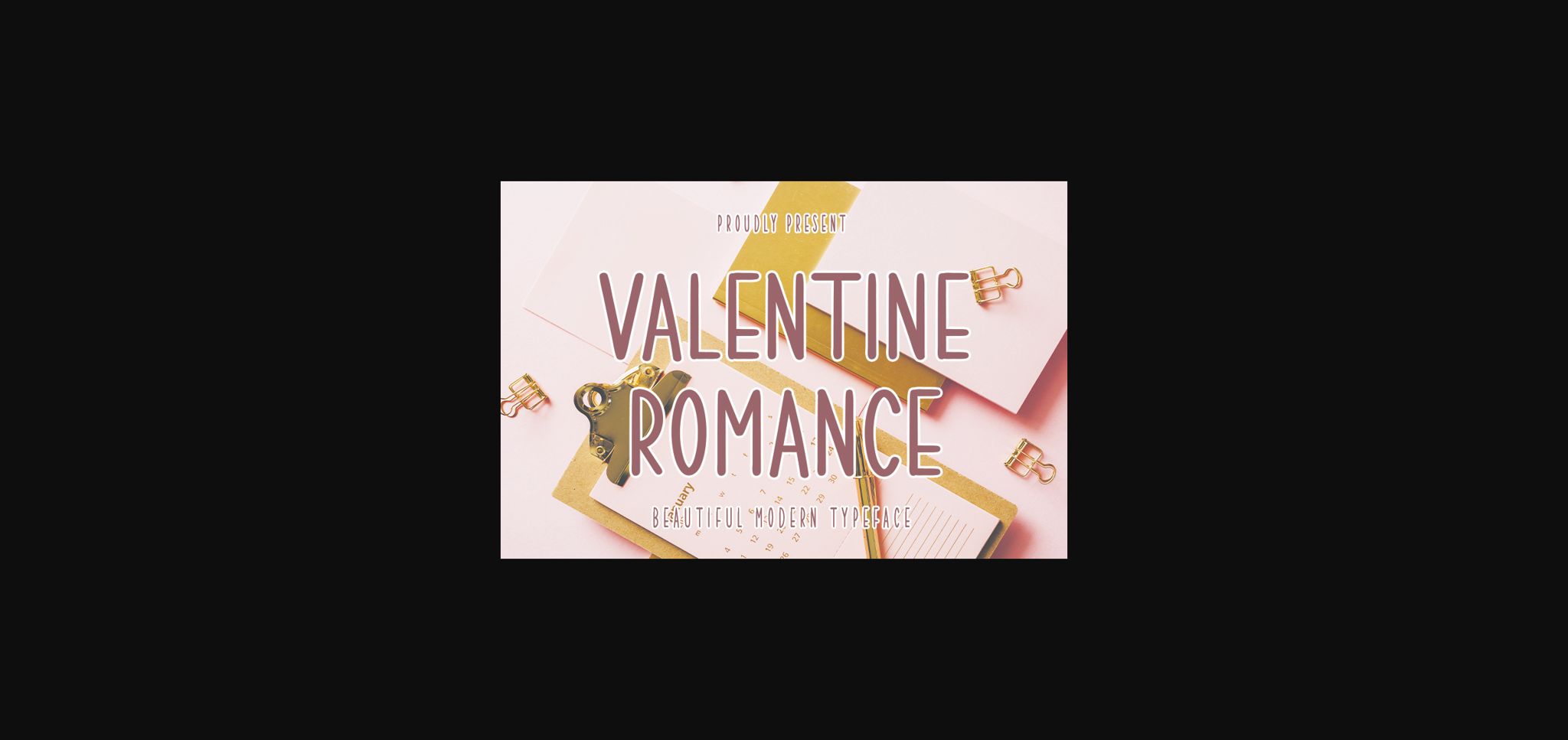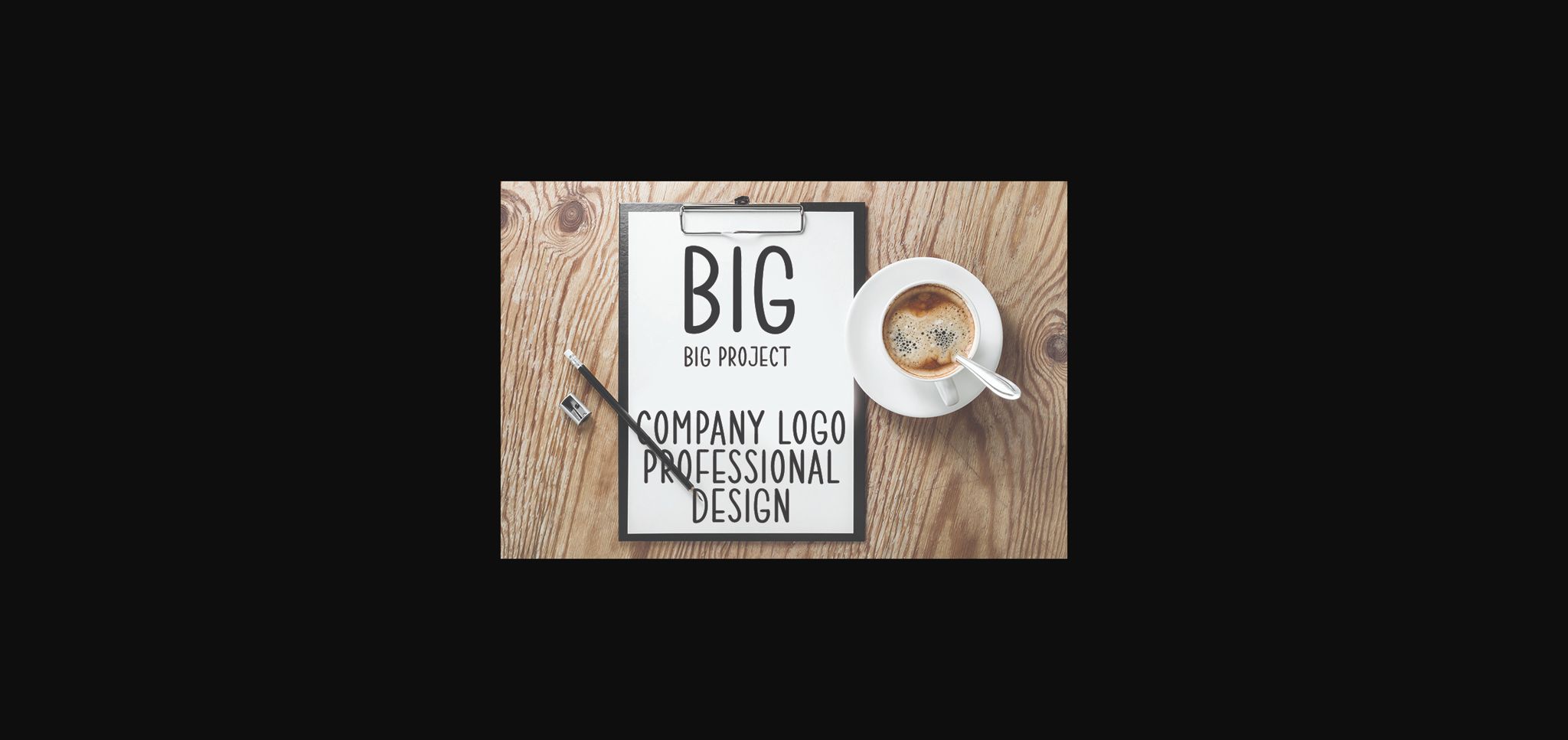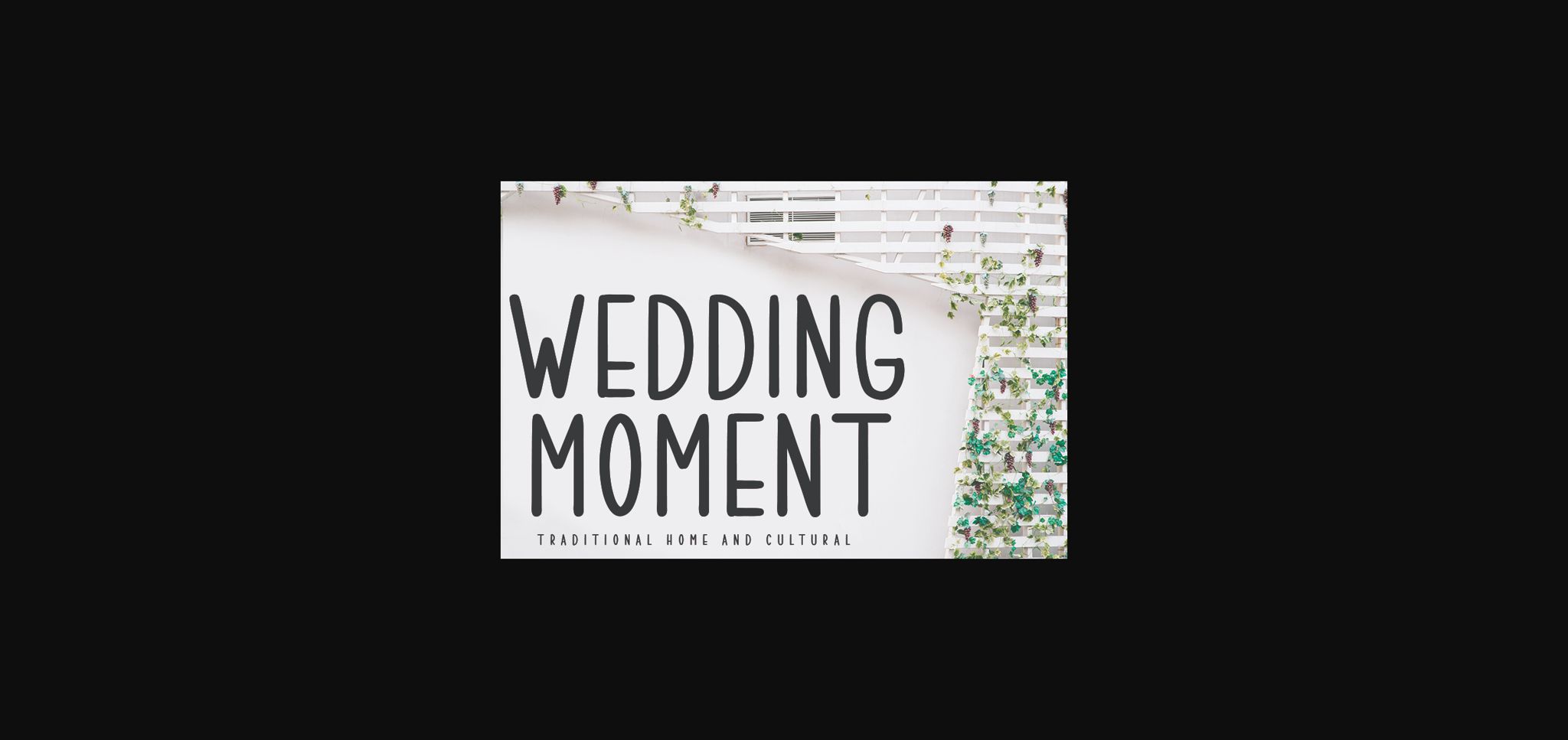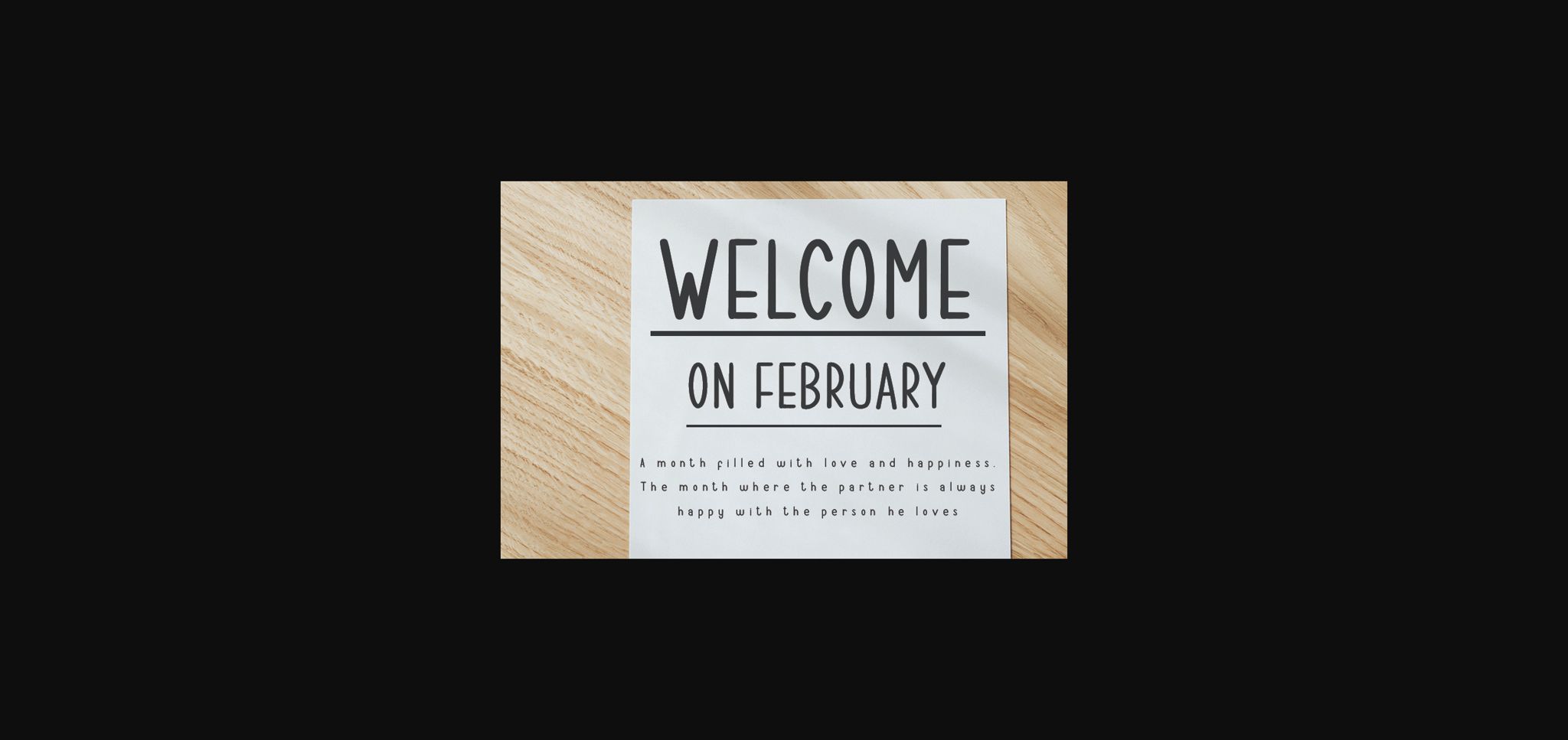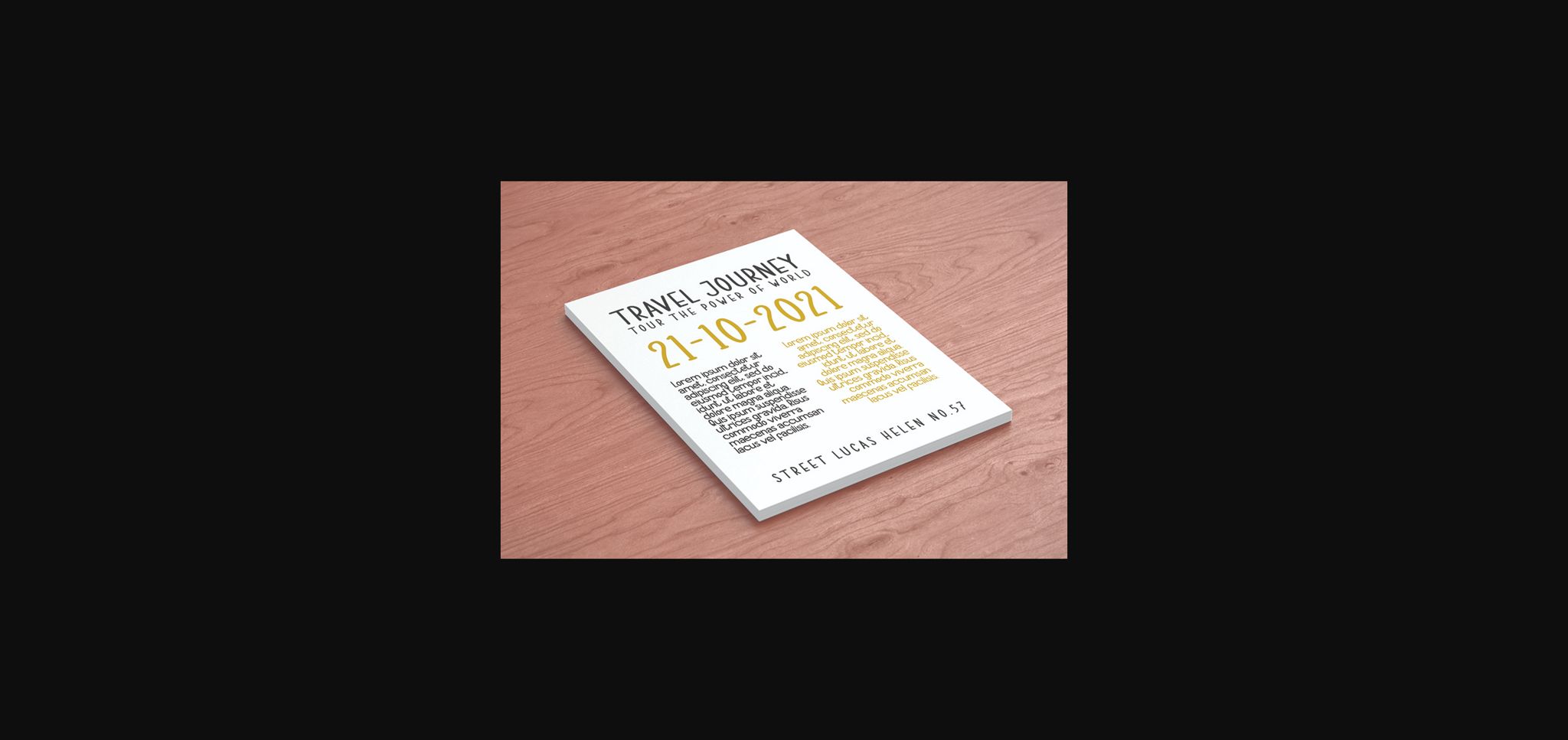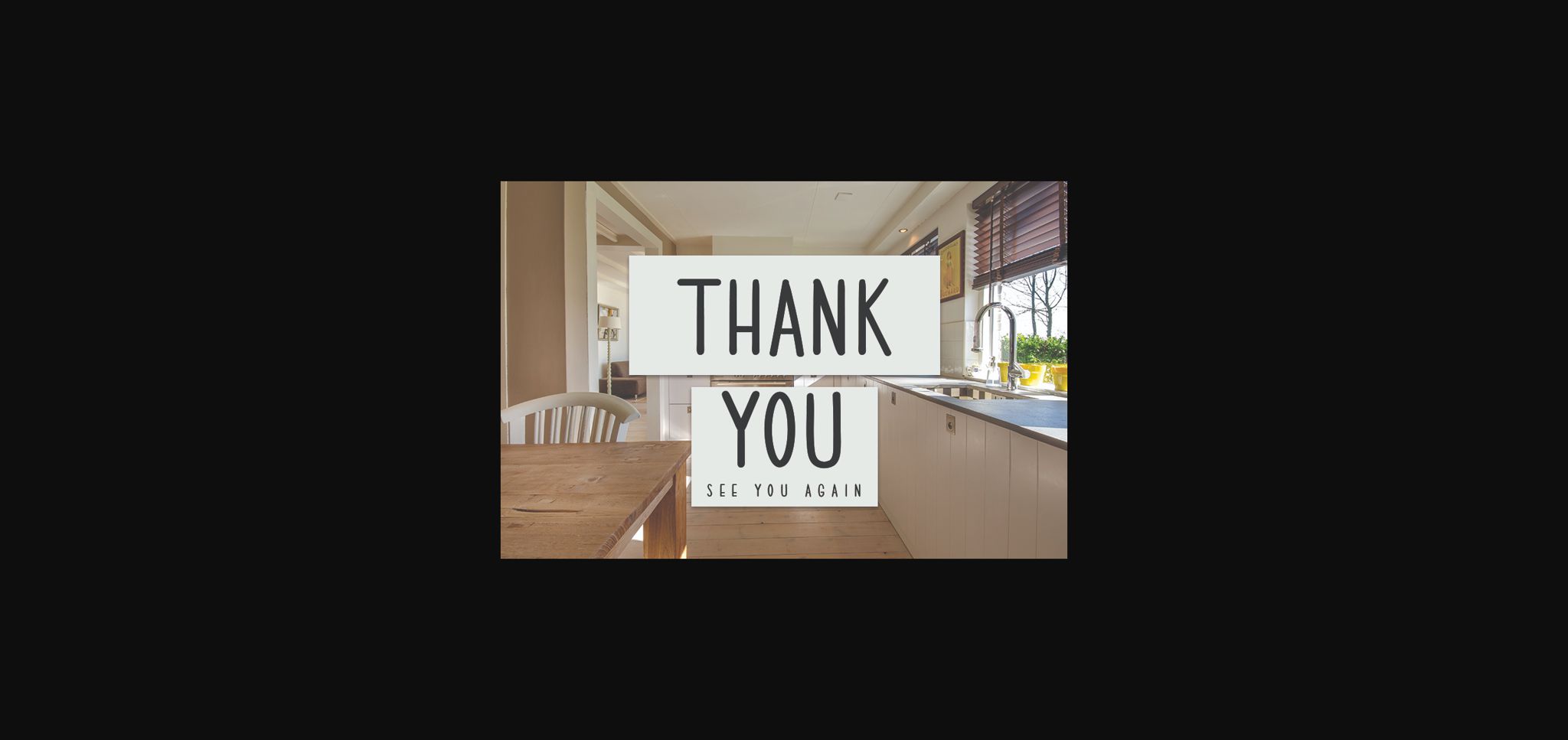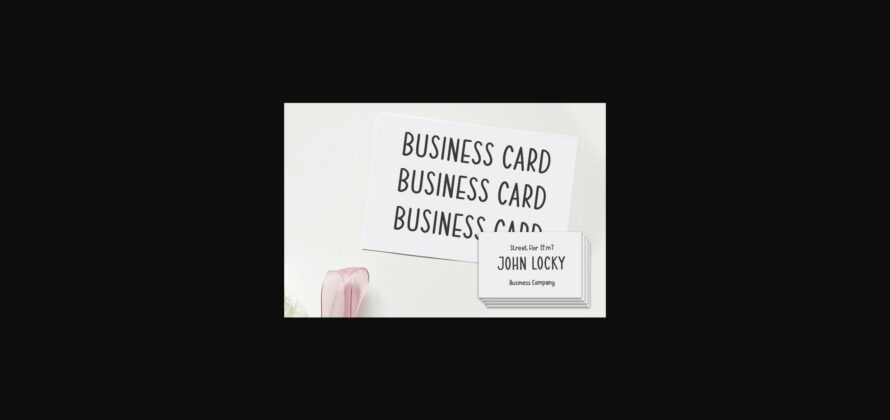
HomeSans Serif FontsValentine Romance Font Sans Serif Fonts Valentine Romance Font FacebookXPinterestWhatsApp 1 of 9 ... Valentine Romance Font Poster 2... Valentine Romance Font Poster 3... Valentine Romance Font Poster 4... Valentine Romance Font Poster 5... Valentine Romance Font Poster 6... Valentine Romance Font Poster 7... Valentine Romance Font Poster 8... Valentine Romance Font Poster 9... About Valentine Romance Font Valentine Romance is a tall and friendly sans serif font that is a little bit quirky with an authentic handwritten feel. This font looks incredibly adept in a wide variety of contexts! DOWNLOAD NOW People also explored Summer Vibes Font Vinttadge Font Blessed Script Font Bainse Font Milky Vanilla Font Happy Flower Font Sunbury Town Font The Great Craftsman Font Christmas Journey Font 306 0 TagsValentine Romance Font Previous articleDecember End FontNext articleLaBonita Font LEAVE A REPLY Cancel reply Comment: Please enter your comment! Name:* Please enter your name here Email:* You have entered an incorrect email address! Please enter your email address here Website: Save my name, email, and website in this browser for the next time I comment. Personal Use Free Foolish Hand Personal Use Free Read more about this font Coffete Personal Use Free Read more about this font Carrolina Personal Use Free Read more about this font Engine Personal Use Free Read more about this font BLOG 5 Fonts That Will Dominate Design Trends in 2026 5 Fonts for 2026 That Will Dominate Design Trends Typography plays a critical role in visual communication, and as we look ahead to 2026, it’s... Free vs Paid Fonts: Why Investing in Premium Fonts Is Worth It How to Install and Use Fonts on Windows, macOS, and Web Projects Free Fonts Risk: Why Free Fonts Can Be Dangerous for Designers